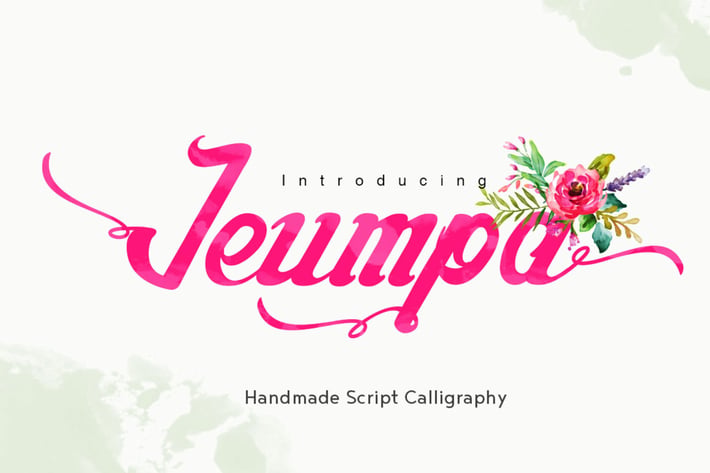
Jeumpa - Beautiful Script Font Logotype
Jeumpa Sript Font
Jeumpa Script is another lovely modern calligraphy typefaces, which is combining the style of classic calligraphy with an modern style. The Features of this fonts is :
Discretionary Ligatures
Stylistic Alternates
Initial and Terminal Forms that setting up in Contextual swashes ( This fonts is automatically setting the initial and terminal forms as default, and if you want to turn off the initial and terminal just click the button of the contextual swashes, it more easier than opening the glyph tab)